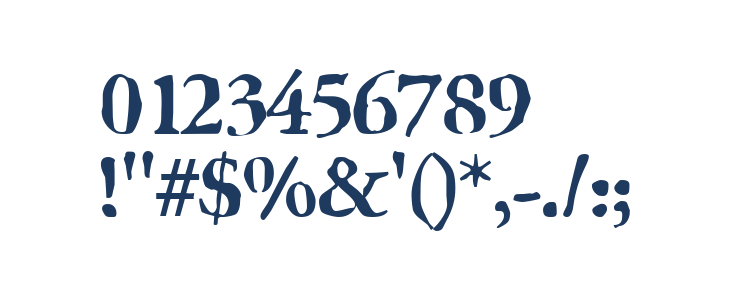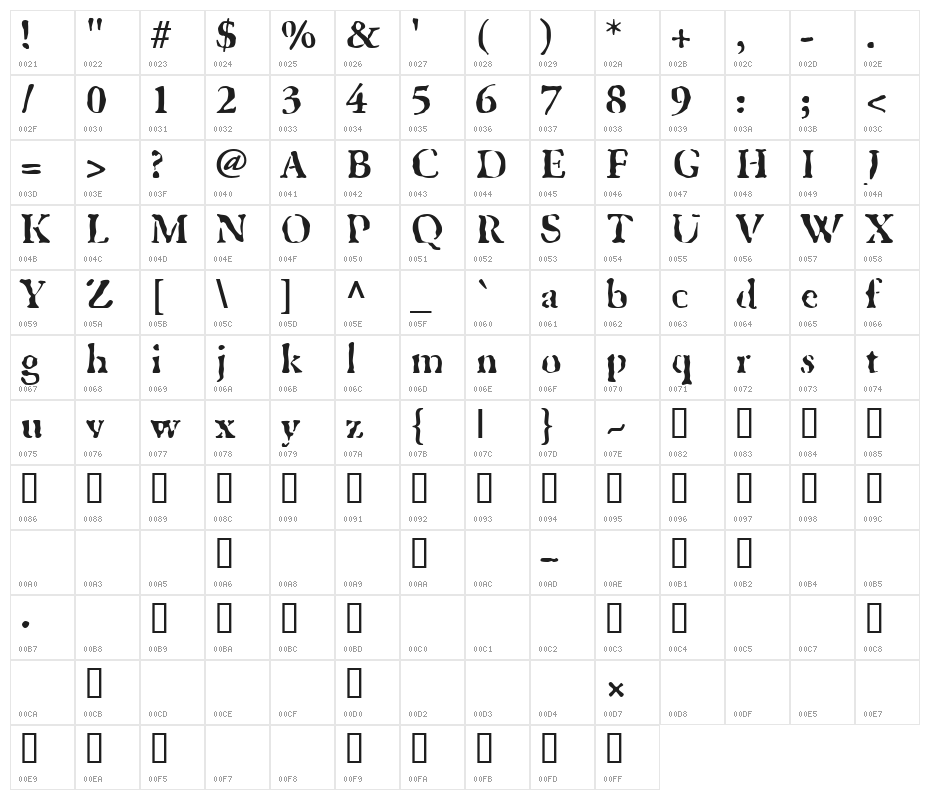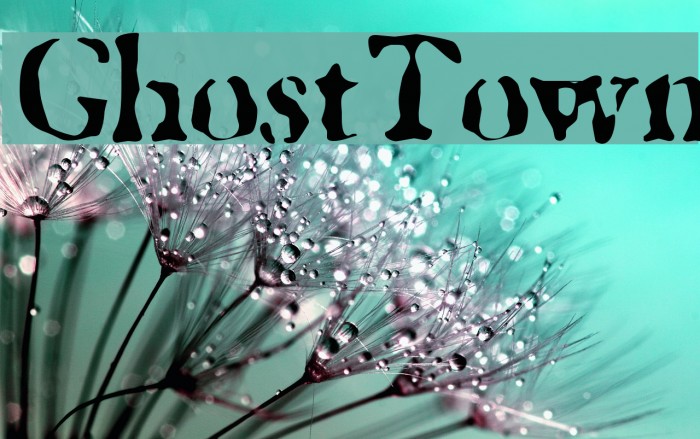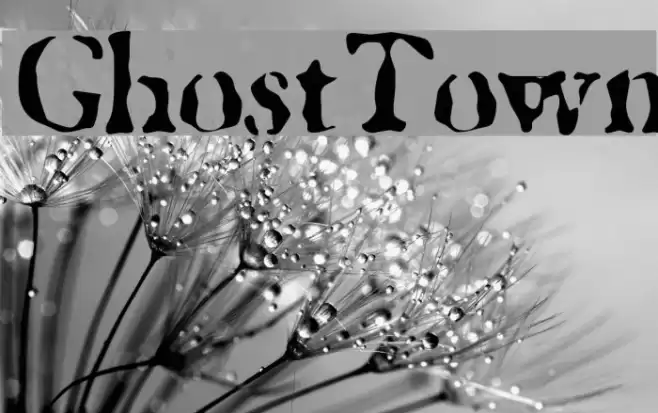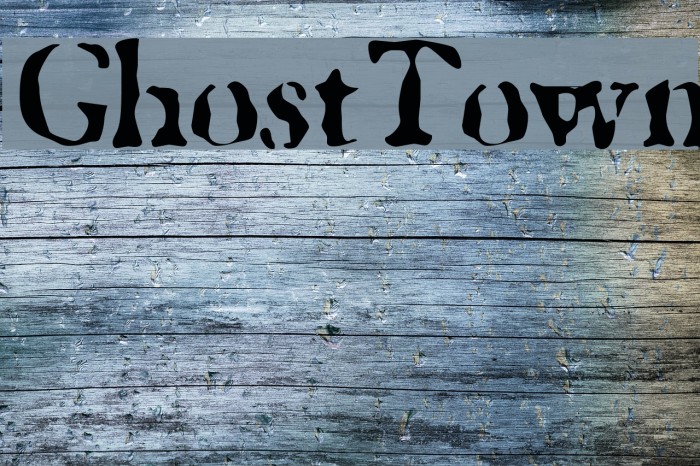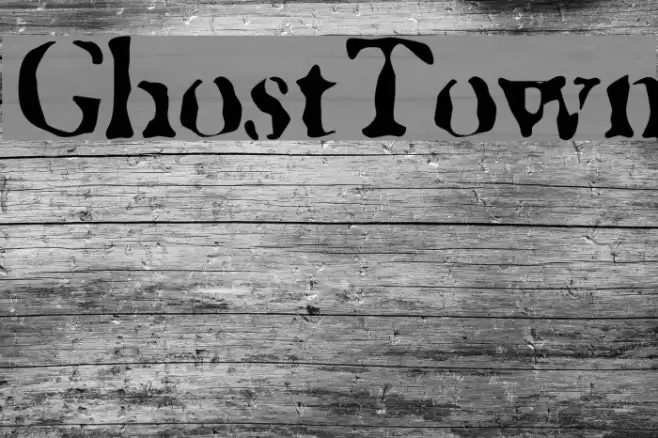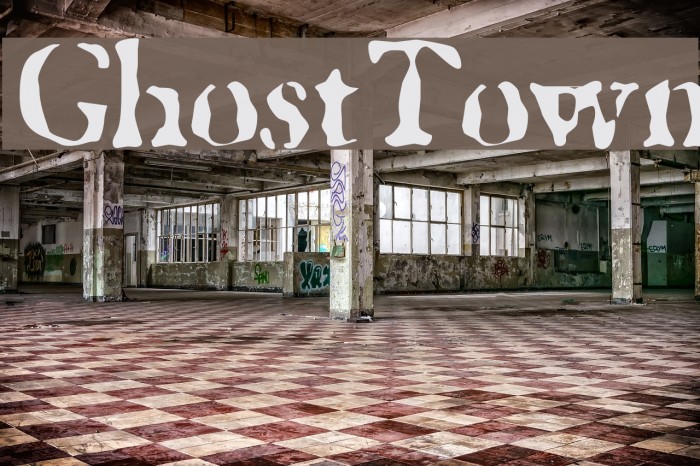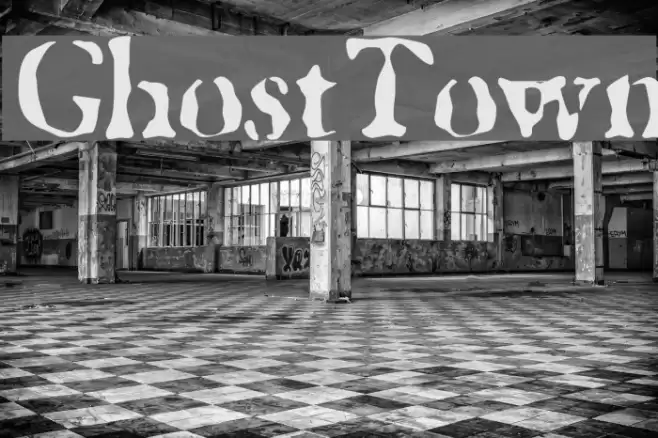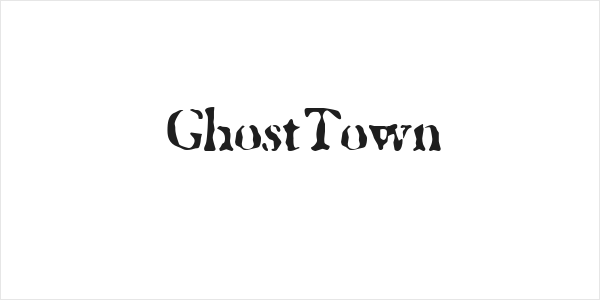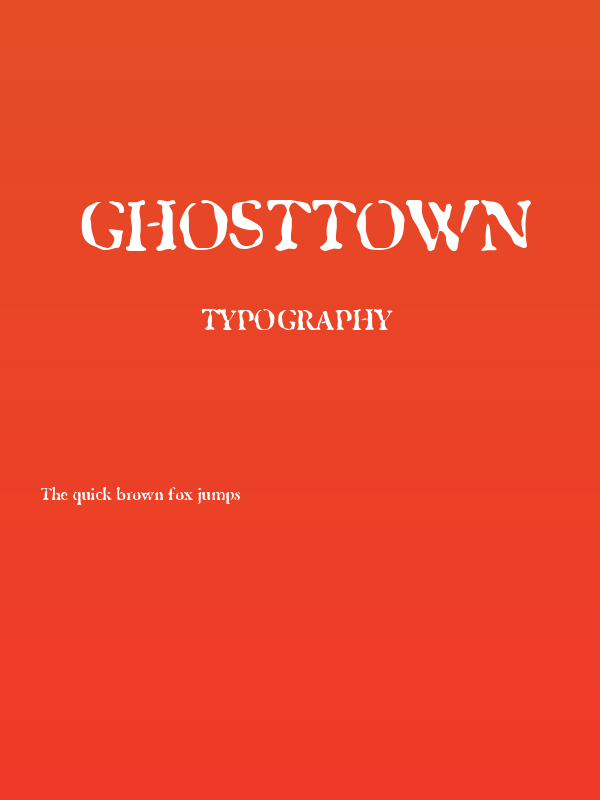
GhostTown Font
GhostTown Description
This font features a distressed, rugged appearance, reminiscent of old western or ghost town signage. The characters have irregular edges and a bold, heavy presence, giving them a weathered and vintage look. The uppercase and lowercase letters maintain a consistent style, with unique, jagged serifs that add to the font's rustic charm. Numbers and special characters follow the same design ethos, making the font versatile for themed projects. The overall aesthetic is both decorative and functional, suitable for creating an atmosphere of nostalgia or adventure.
| Use Case | Headlines, Logos, Themed Events |
| Proposed Projects | Ideal for themed posters, vintage signage, Halloween invitations, or any project requiring a rustic, old-western feel. |